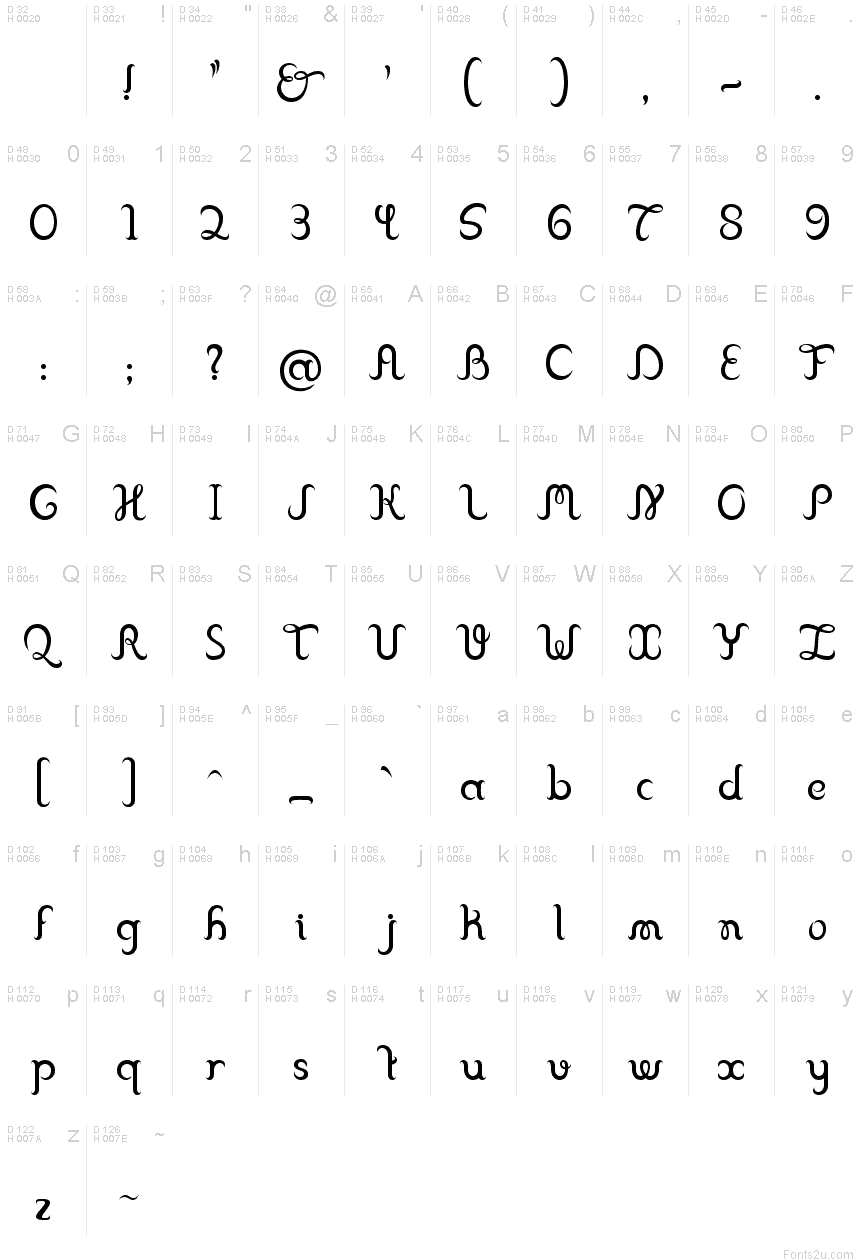
Franklin Cascaes by Saulo Deboni, Mirian Mitsue Yanai, and Silvia Cristina Medeiros is a free Art Nouveau-inspired display font with curling serifs and pronounced thick-thin contrast. Its tall, fluid letters fold into loops and hooked strokes.
The ornamental style fits poster lettering, book covers, and invitations built around fantasy, folklore, or theatrical themes. Repeated curves give the type a hand-drawn liveliness that can echo vines, smoke, or decorative borders in accompanying artwork. For boutique branding and specialty packaging, the unusual letterforms can become part of an emblem rather than serving as ordinary text, especially for confectionery, candles, or artisan goods.